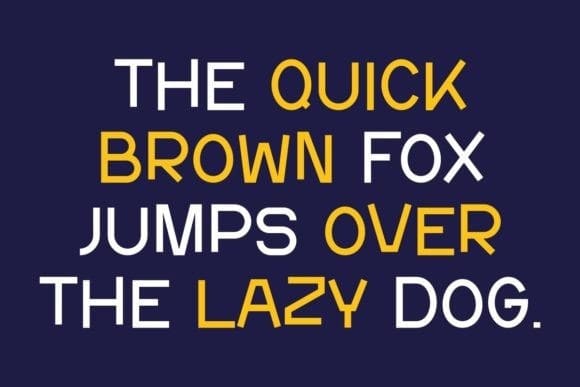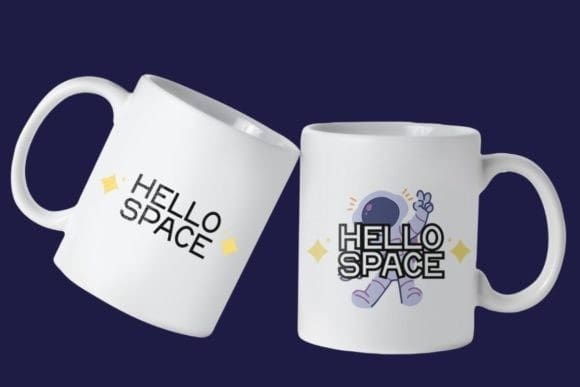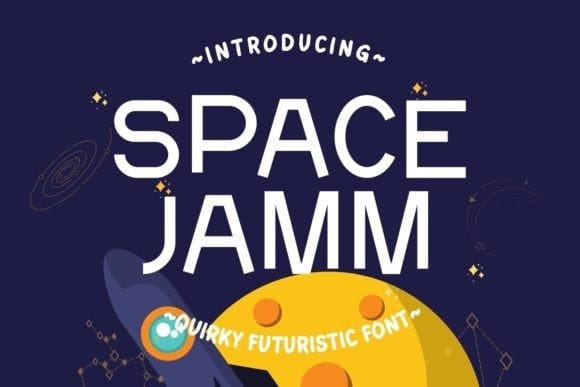
Space Jamm Font
Space Jamm Font is a quirky modern and futuristicsans serif font. SpaceJamm is perfect for adding a touch of intergalactic intrigue to your space-themed posters, cutting-edge branding, and avant-garde digital designs.